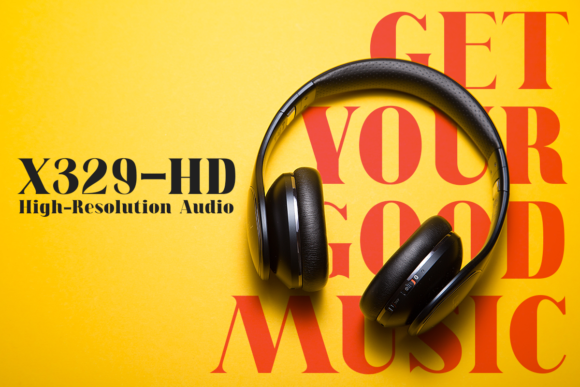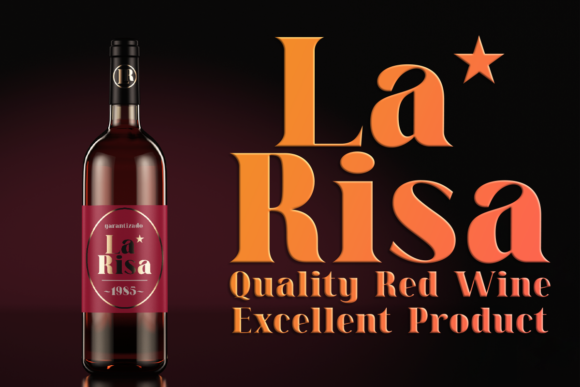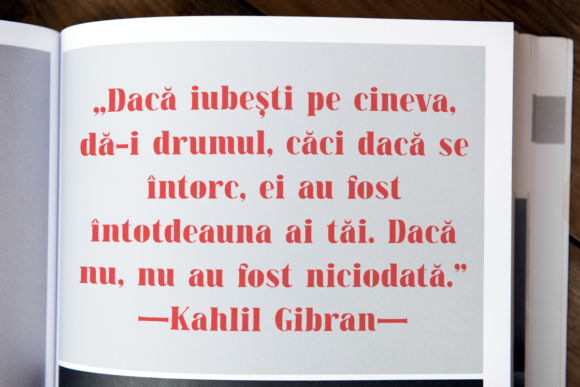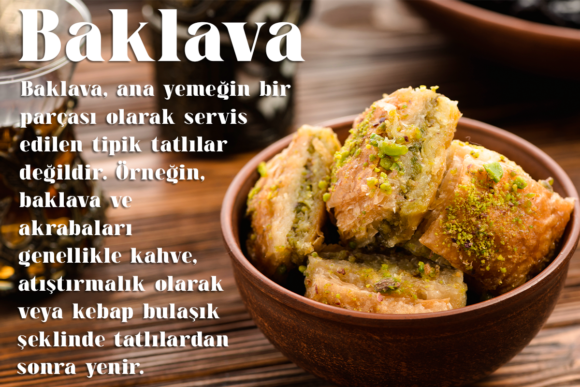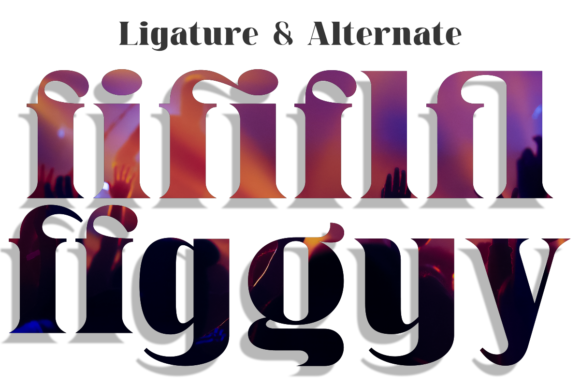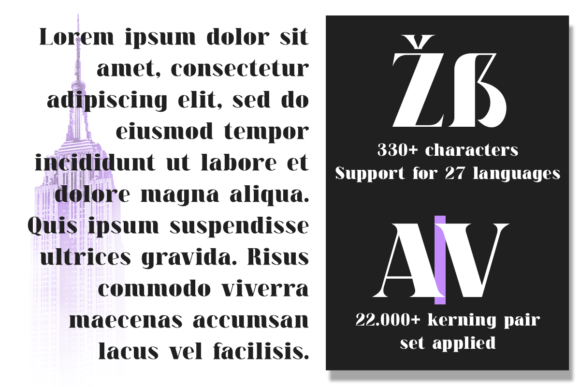
Introduction to Kakkoi Font
Have you ever been working on a creative project and suddenly, the perfect font pops up in your mind? For designers, finding that elusive perfect font can be a game-changer. It’s the difference between a design that falls flat and one that truly stands out. For those who have been searching for that perfect font, we’re excited to introduce you to the Kakkoi Font – a bold and modern serif font that’s sure to become a true favorite.
Handcrafted with care, the Kakkoi Font is designed to shine in any context, whether it’s on a busy background or as a standalone headline. With its high-quality design, it’s the perfect addition to any design project, making it a valuable resource for designers looking to elevate their work. And the best part? The Kakkoi Font is available for free download, making it easily accessible to designers of all levels.
Key Features of Kakkoi Font
- Unique and creative design for various creative projects, including digital art and graphic design.
- Comes in a transparent background format, allowing for easy integration into various design elements.
- High-quality font with crisp and clear typography, suitable for a range of applications, from logos to signage.
Honest Review: Kakkoi Font
As a designer, I’m always on the lookout for high-quality design resources to elevate my creative projects. The Kakkoi Font caught my attention with its unique and playful style. I decided to give it a try and see how it performs in real-world applications.
- ✨ The font’s aesthetic is modern and eye-catching, making it perfect for bold and creative projects.
- ✨ The font’s transparent background feature is incredibly useful for creating visually appealing designs with minimal effort.
- ⚠️ The font may not be suitable for all types of projects, particularly those requiring a more traditional or formal look.
- ⚠️ The font’s uniqueness can sometimes make it difficult to pair with other design elements, requiring more effort to find the right combinations.
Overall, I’m impressed with the Kakkoi Font’s potential to add a touch of creativity to my projects. While it may have its limitations, its unique style and free download option make it a valuable design resource worth exploring further.
How to Use Kakkoi Font
Kakkoi Font is a unique and creative design resource that offers a free download option. This high-quality font is perfect for adding a touch of personality to your design projects. With its transparent background, you can easily incorporate it into your designs without any hassle.
Kakkoi Font is perfect for:
- Creating eye-catching headlines and titles.
- Designing social media graphics and ads.
- Developing branding materials and logos.
Tips for Getting the Most Out of Kakkoi Font
To get the most out of Kakkoi Font, try:
- Pairing the font with vintage-style illustrations or graphics to create a cohesive look.
- Using a combination of bold and cursive text to add visual interest.
- Adding a subtle gradient or texture to the background to enhance the overall design.
- Pairing the font with a simple, white background to create a clean and minimalist look.
- Adding a delicate floral pattern or illustration to the background to add a touch of romance.
Tips for combining the Kakkoi Font with other design elements include: